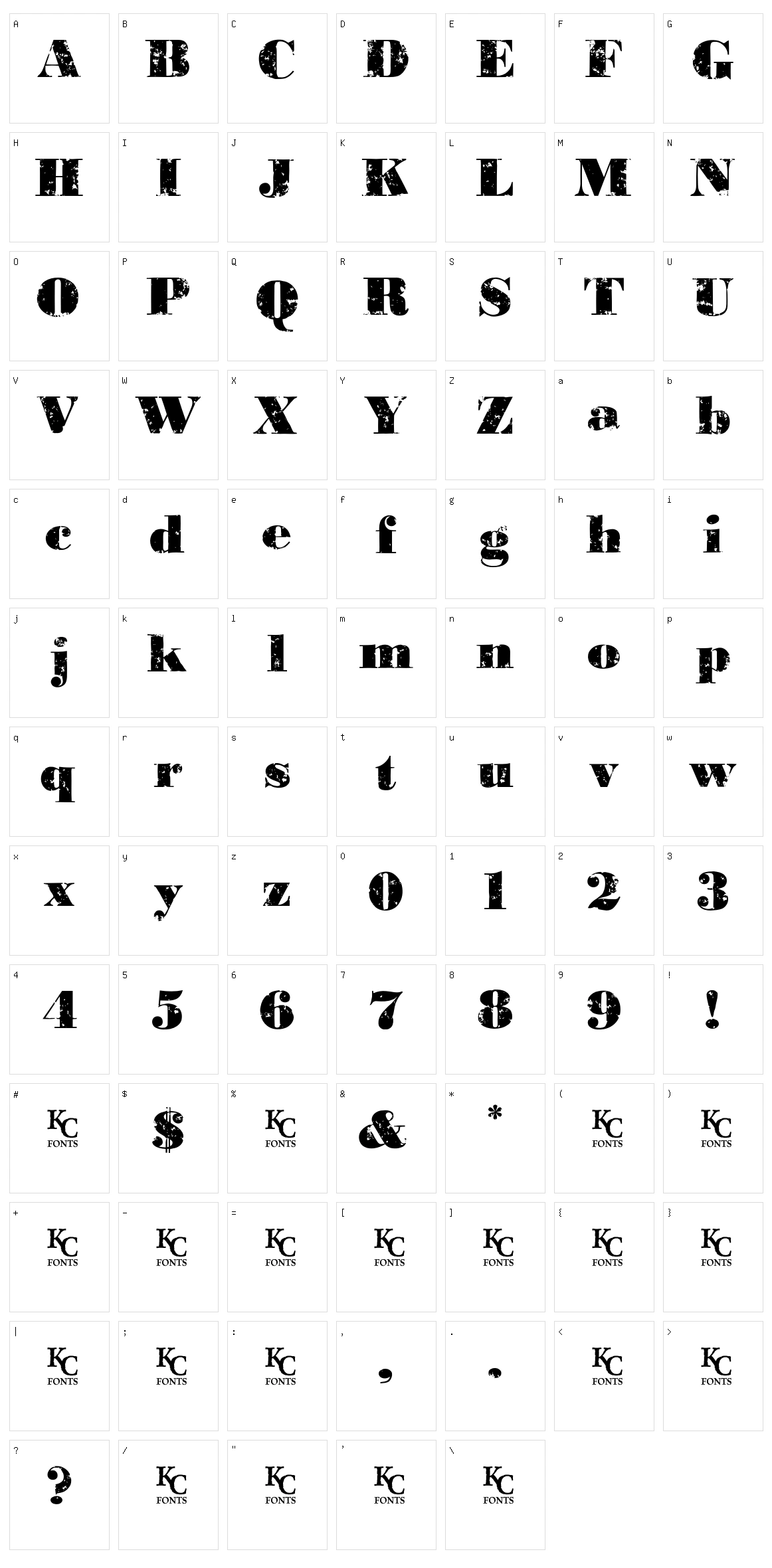
The free font Past Due is carefully designed by KC Fonts, showcasing a thoughtful balance of creativity and usability and falls under the Eroded font style. When you download the ZIP file, it contains only 293.27 KB of font files, making it lightweight and quick to download. Please review the license details below to understand permitted usage and distribution rights. If license information is not available, we recommend using this font for personal projects only or contacting the author directly for commercial usage permissions.